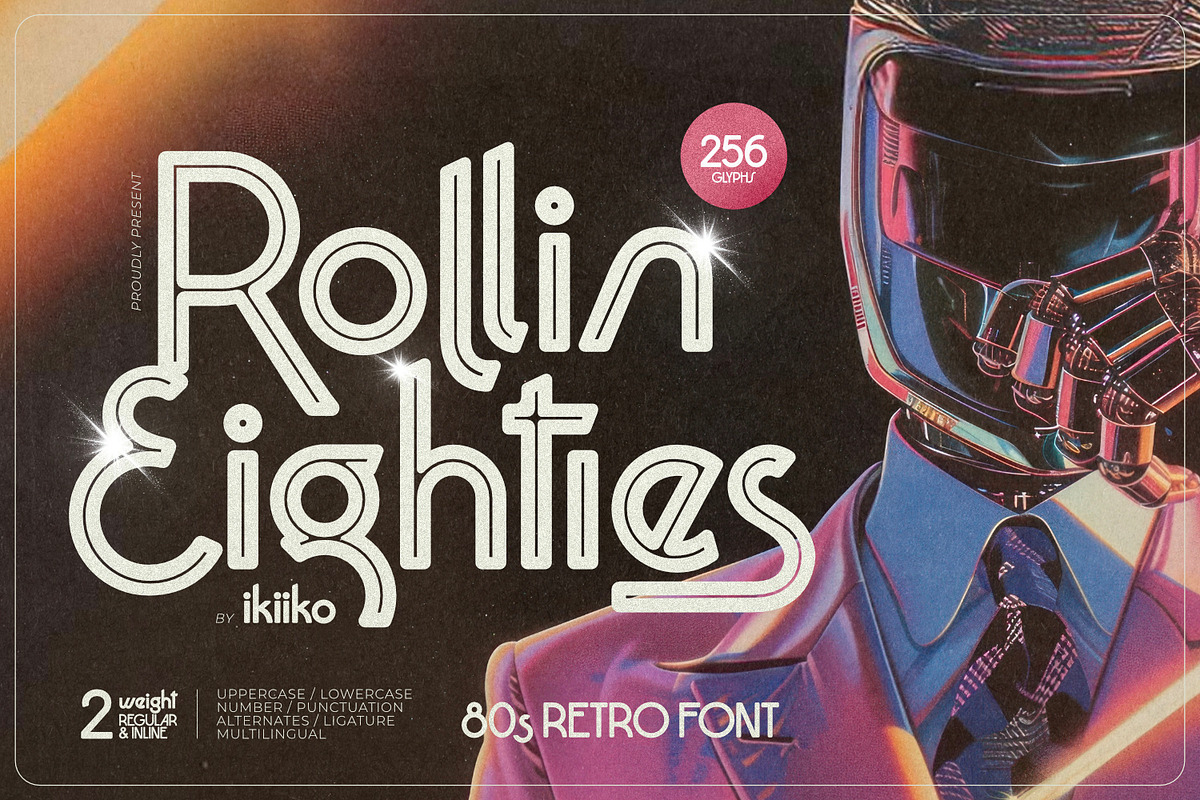
Turn up the volume and rewind to the golden era of neon dreams, synth-heavy beats, and limitless imagination. Rollin Eighties—crafted by the visionary ikiiko—is not just a font. It’s a time machine, a dance floor, a pixelated sunset over a futuristic cityscape. This isn’t nostalgia as a memory—it’s revival as an experience.
Two Dynamic Styles. Infinite Energy.
Rollin Eighties delivers two bold, electrifying variants to fuel your creative fire:
- Regular: A striking, high-impact expression of 80s rebellion—sharp serifs, exaggerated x-heights, and dramatic curves that scream “I’m here, and I mean business.” Perfect for headlines, event titles, and brand names that demand attention.
- Inline: Where retro meets futuristic. A sleek, hollowed-out style that mimics neon glow and cybernetic precision. Ideal for club flyers, digital UI elements, and designs that want to feel like they’re glowing from within.
Whether you’re designing a retro-futuristic poster or a high-octane game title screen, Rollin Eighties gives you the tools to dominate the visual landscape—every letter pulses with energy.
Neon Dreams. Cyberpunk Soul. 80s Heart.
This font doesn’t just mimic the 80s—it breathes it. Inspired by the glow of arcade cabinets, the sparkle of sequined jackets, and the shimmer of VHS tapes left on repeat, Rollin Eighties captures the spirit of a decade that believed the future was bright, loud, and unapologetically bold.
Think Tron meets Top Gun meets a neon-lit Tokyo alleyway at midnight. The combination of geometric precision and soft, romantic curves makes this typeface feel both mechanical and emotional—a duality that defines true synthwave artistry.
Perfect for the Unapologetically Bold
Rollin Eighties was built for creators who refuse to blend in:
- Movie posters with a retro-futuristic flair
- Dance club and concert flyers that glow under UV light
- Branding for music labels, gaming studios, or fashion lines inspired by the 80s
- Merchandise, packaging, and digital assets that stand out in a crowded market
- Web headers, app icons, and UI elements that scream “this is where the future starts”
Use it for short, powerful phrases—logos, taglines, titles—and watch your designs come alive with the kind of attitude that only the 80s could deliver.
Engineered for Impact, Not Comfort
Unlike fonts made for long-form reading, Rollin Eighties thrives in short, expressive bursts. Its dramatic proportions, wide spacing, and dynamic structure are optimized for visual impact at large sizes. This is not your average body text font—this is design as performance art.
Use it to set the tone. To shock. To inspire. To make people stop scrolling and say: “Wait… what’s that?”
Boldly Yours, Future-Backward
Rollin Eighties is more than a typeface. It’s a movement. A cultural echo. A refusal to forget that the past once dreamed in neon.
Whether you’re a designer, artist, marketer, or creative entrepreneur, this font is your weapon of choice for projects that want to feel electric, cinematic, and unforgettable.
Dare to roll back. Dare to shine. Let Rollin Eighties be the pulse in your next masterpiece.